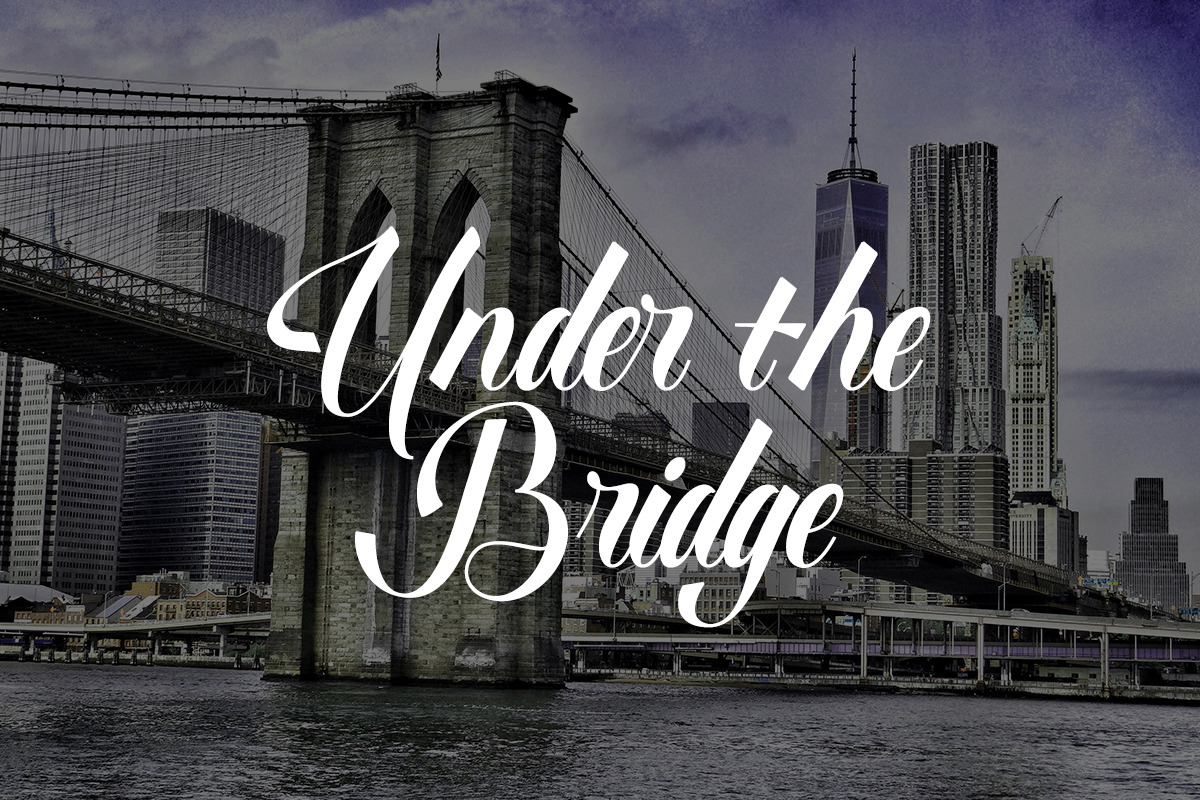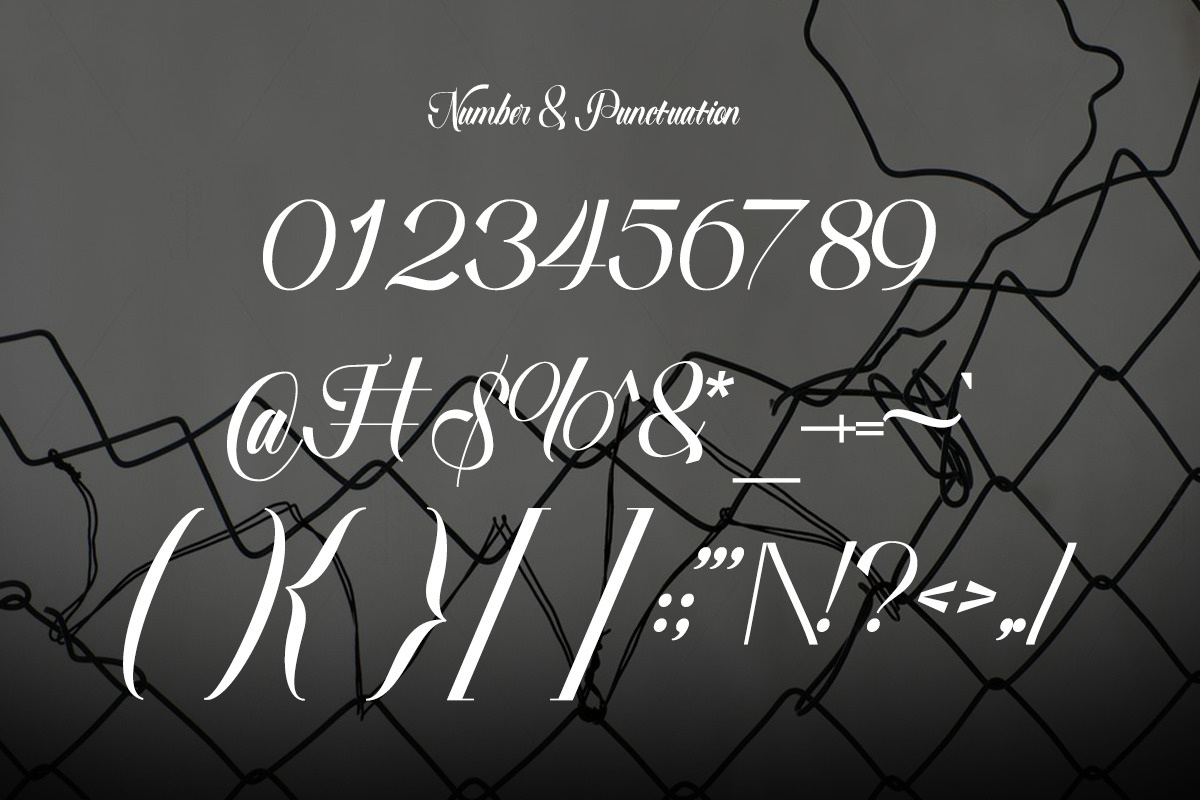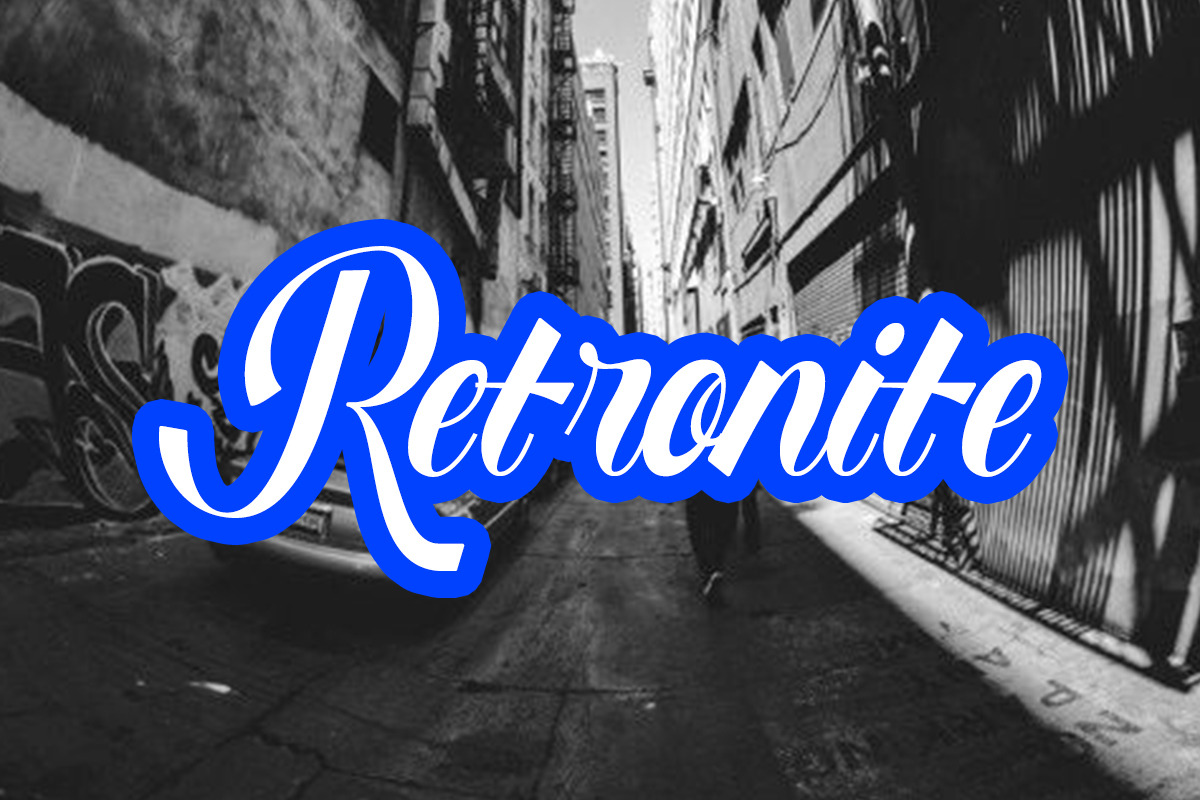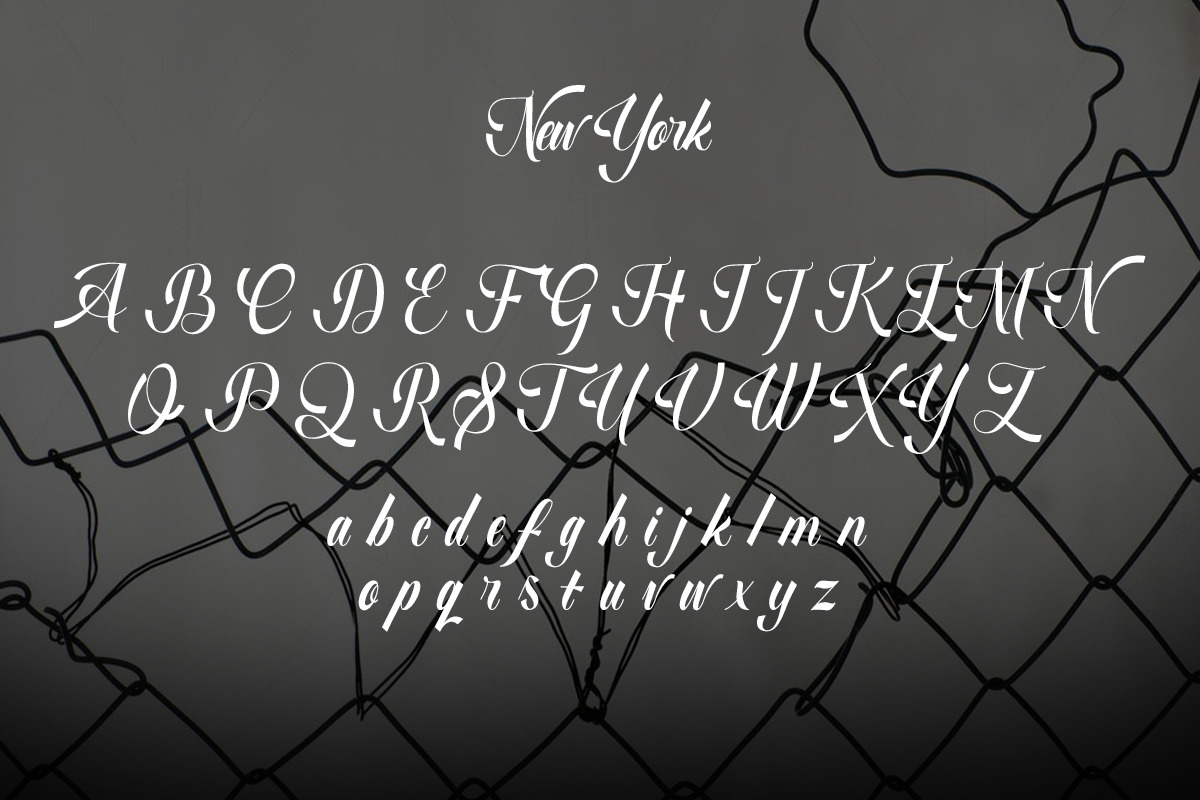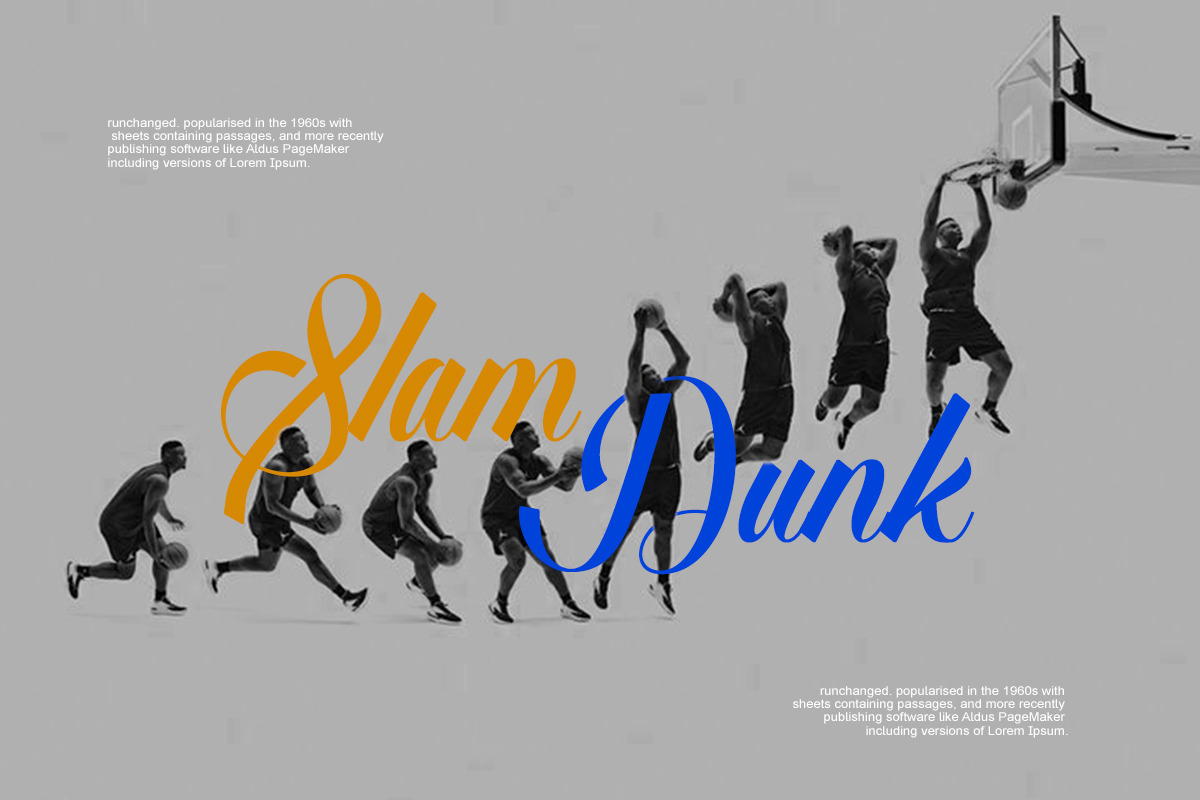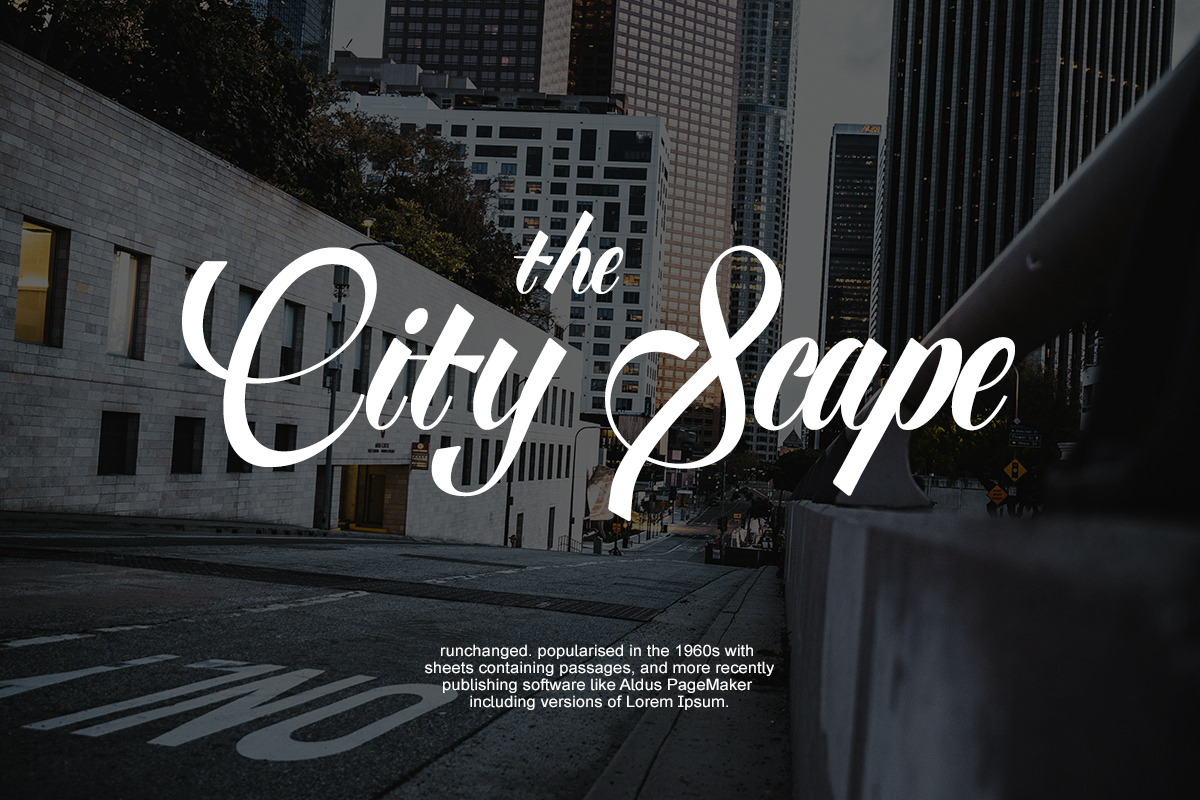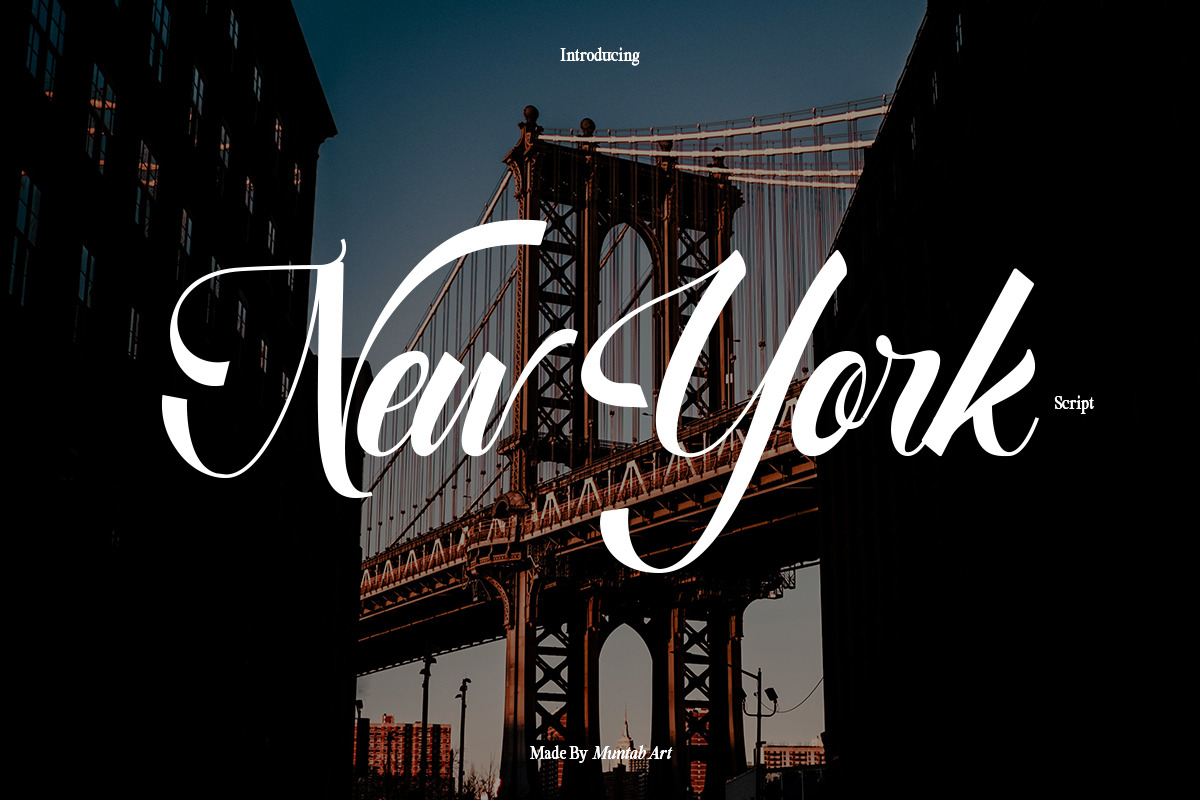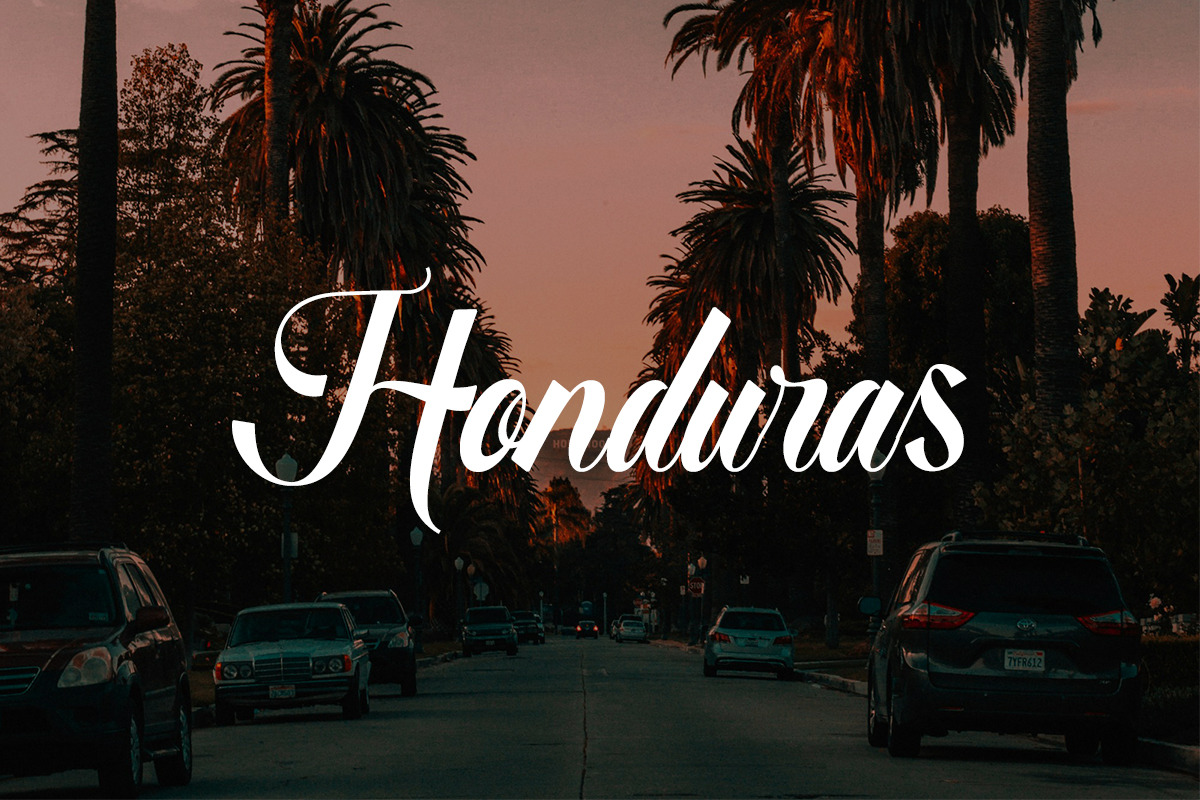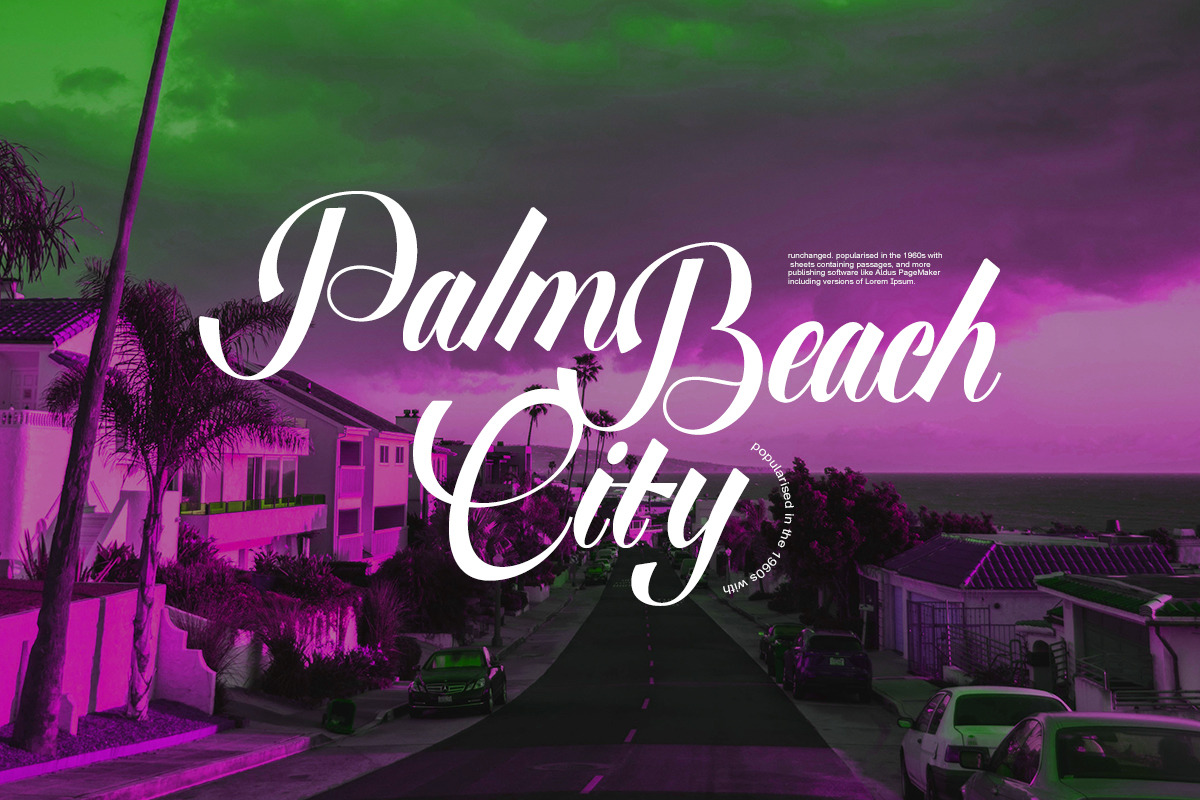
New York Script Font
New York fonts includes uppercase letters, lowercase letters, numerals, a large range of punctuation. Script font with Elegance style. Created for poster, web design, branding, illustrations, badges and some other works.